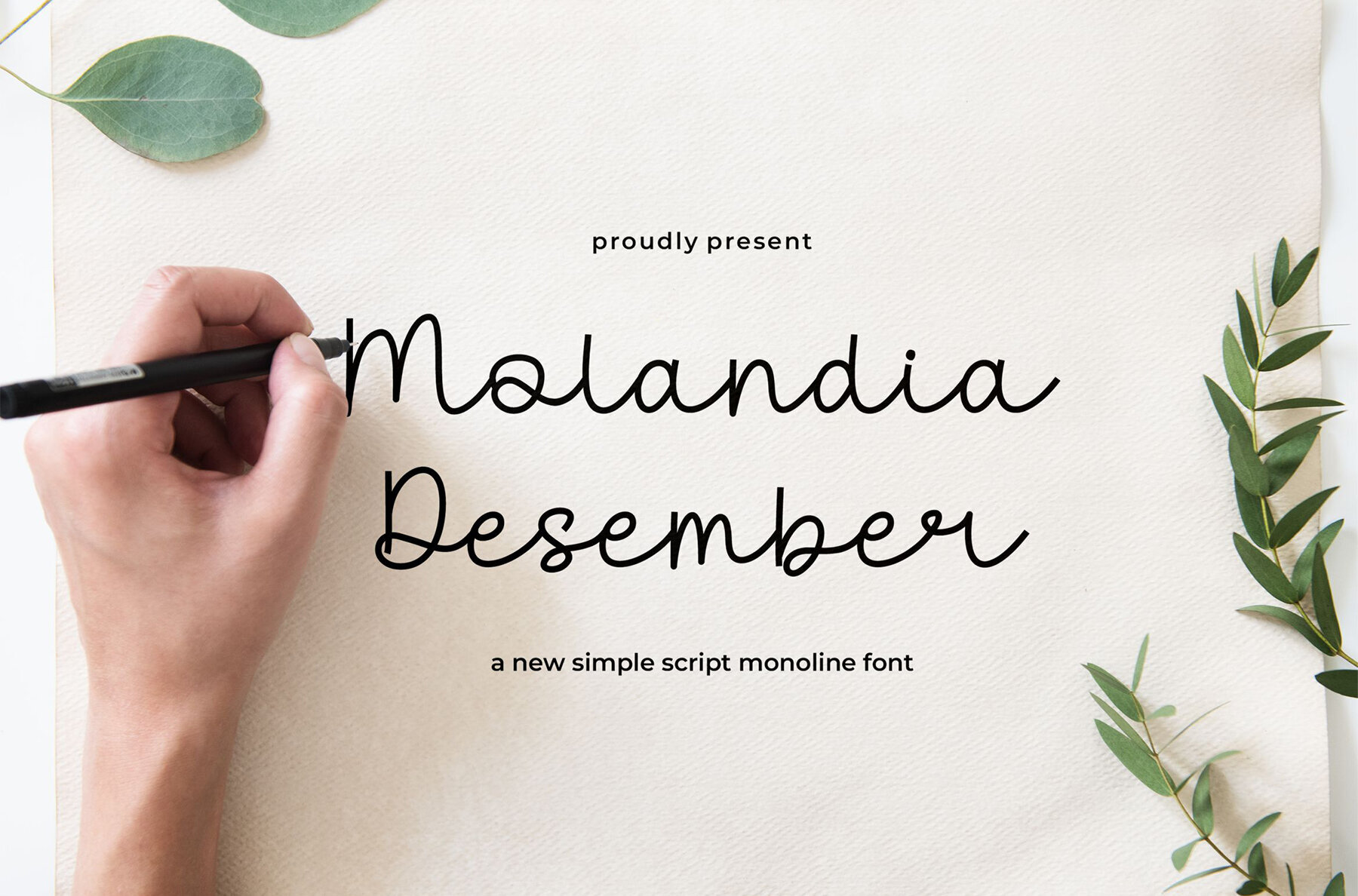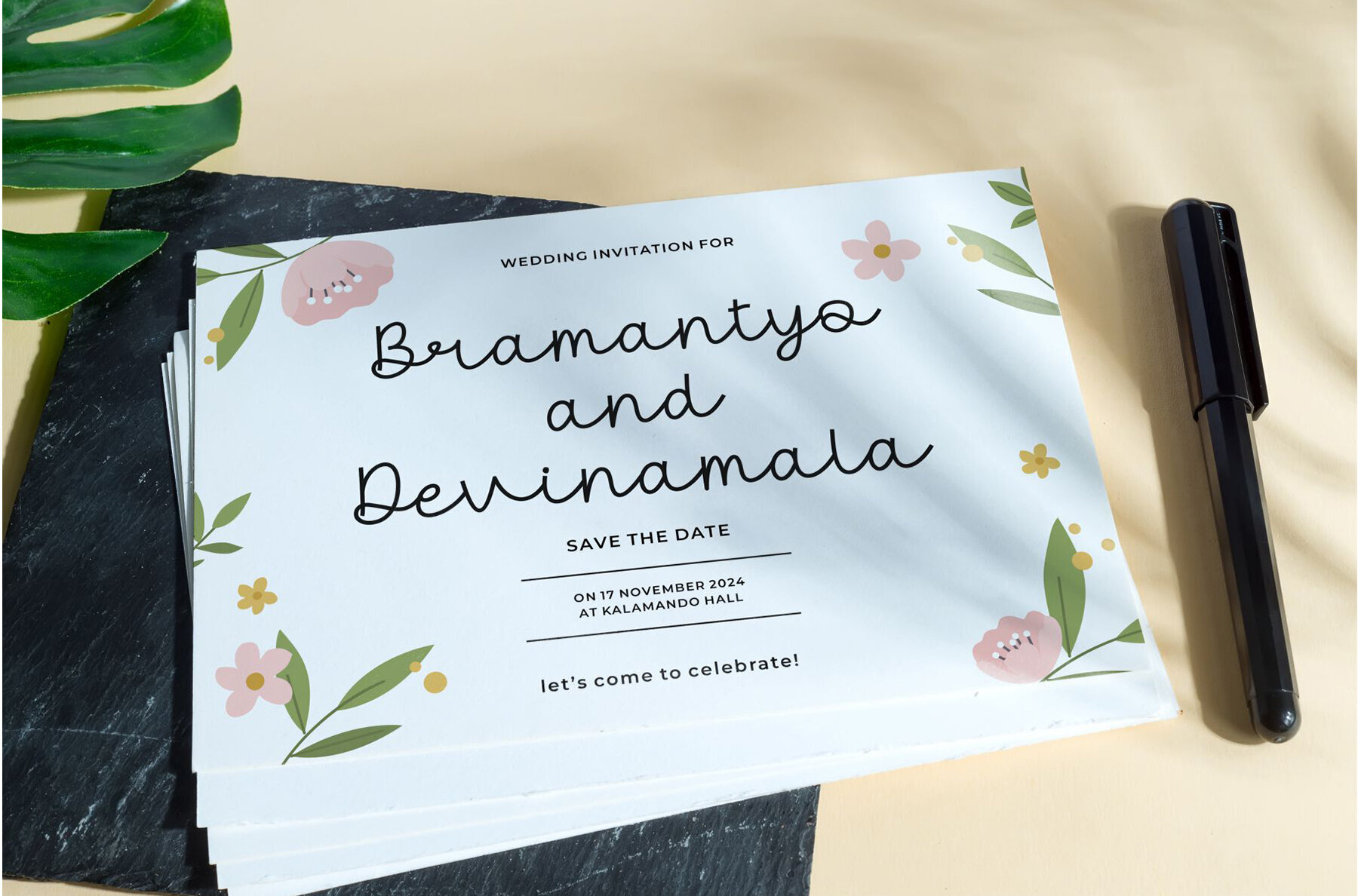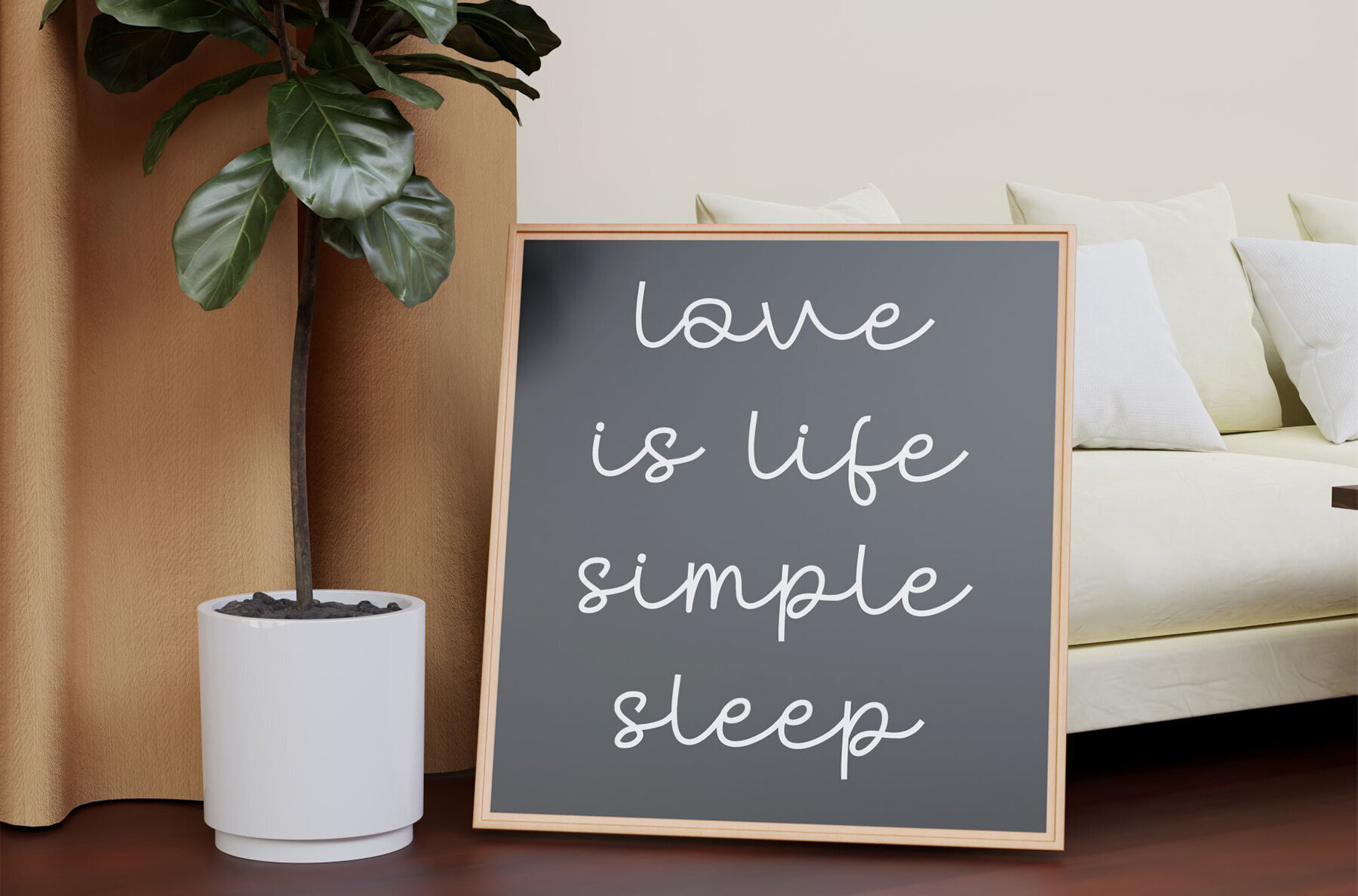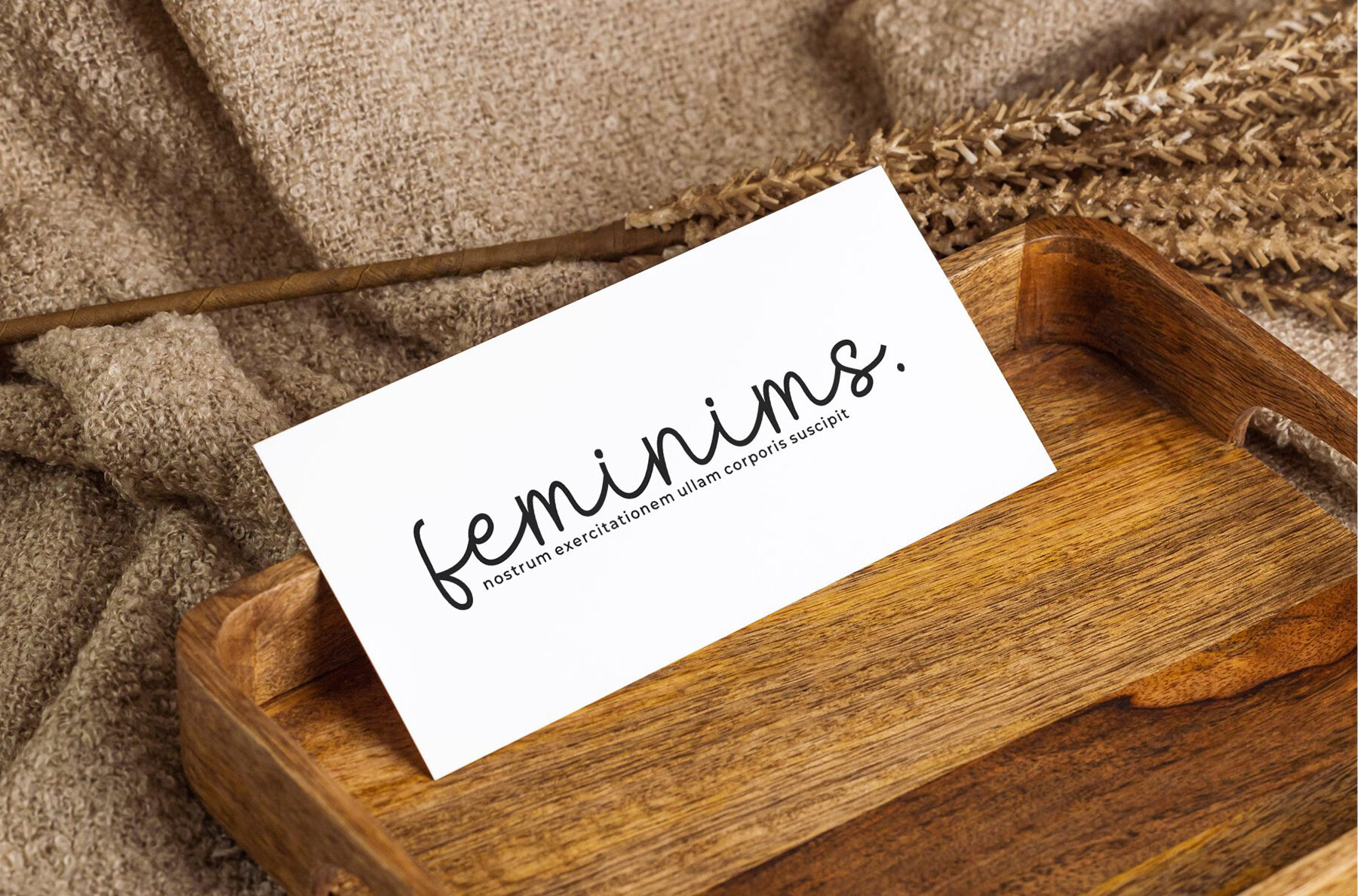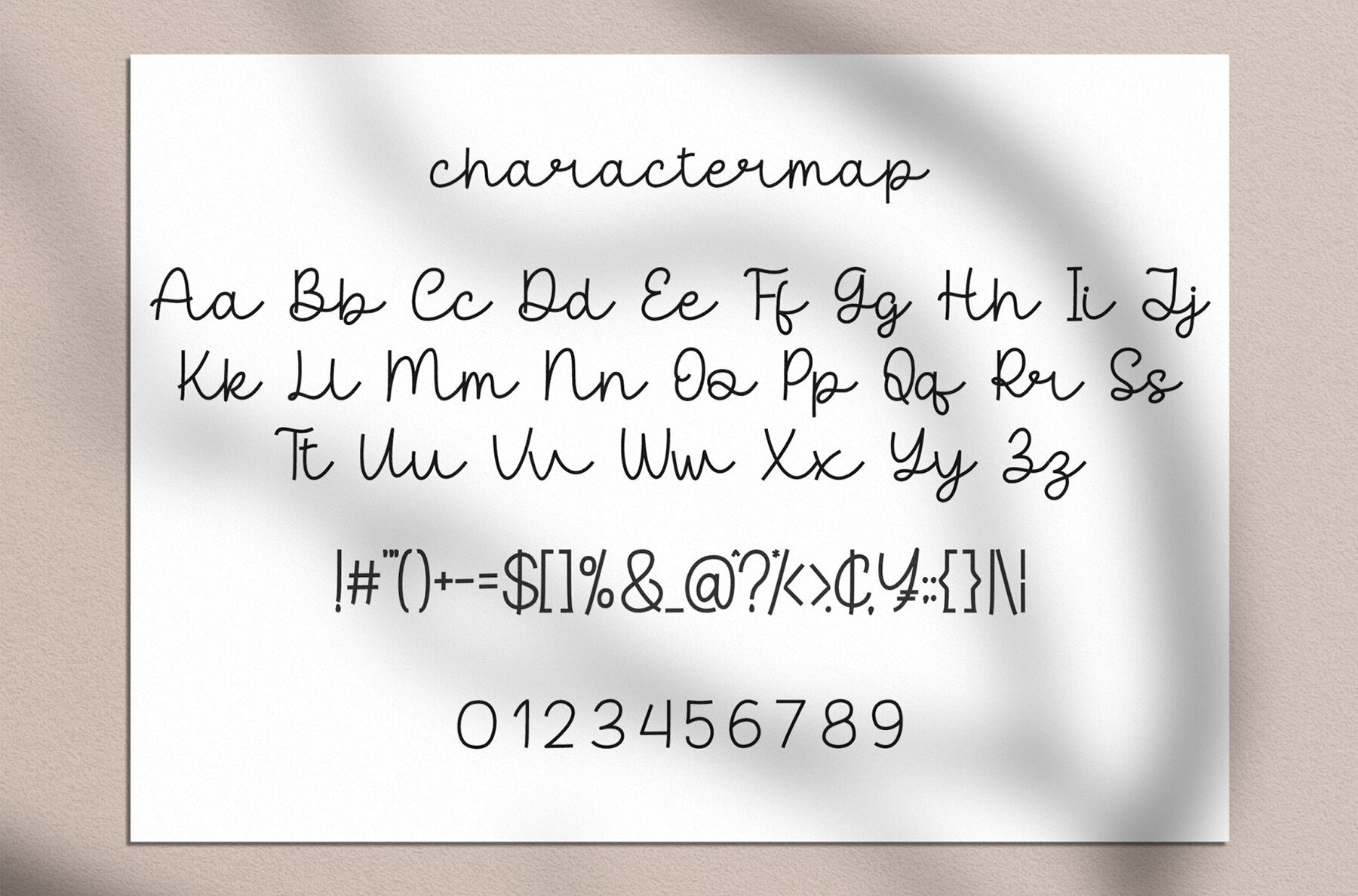
Molandia Desember
Molandia Desember is a beautiful handwritten font that combines casual charm with elegant style. It is well-suited for a diverse range of design projects, from branding and labels to photography and invitations. Whether you're working on wedding designs, social media posts, advertising, product packaging, or any other creative endeavor, this font adds a touch of sophistication.
Key Features:
- Includes ligatures
- Uppercase and lowercase characters
- Complete numbering and punctuation
With its versatile design, Molandia Desember effortlessly enhances any project, providing designers with a unique and eye-catching option.